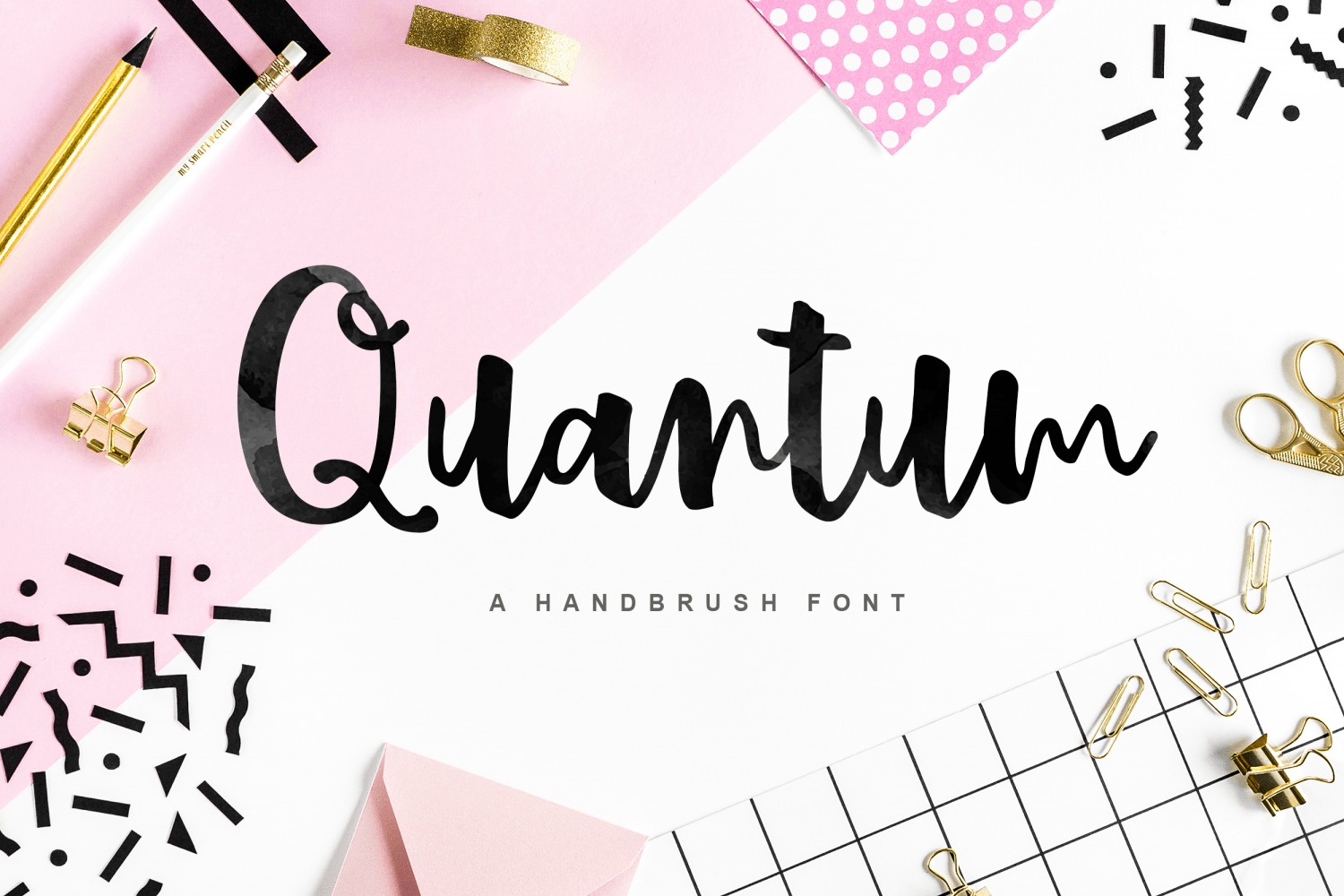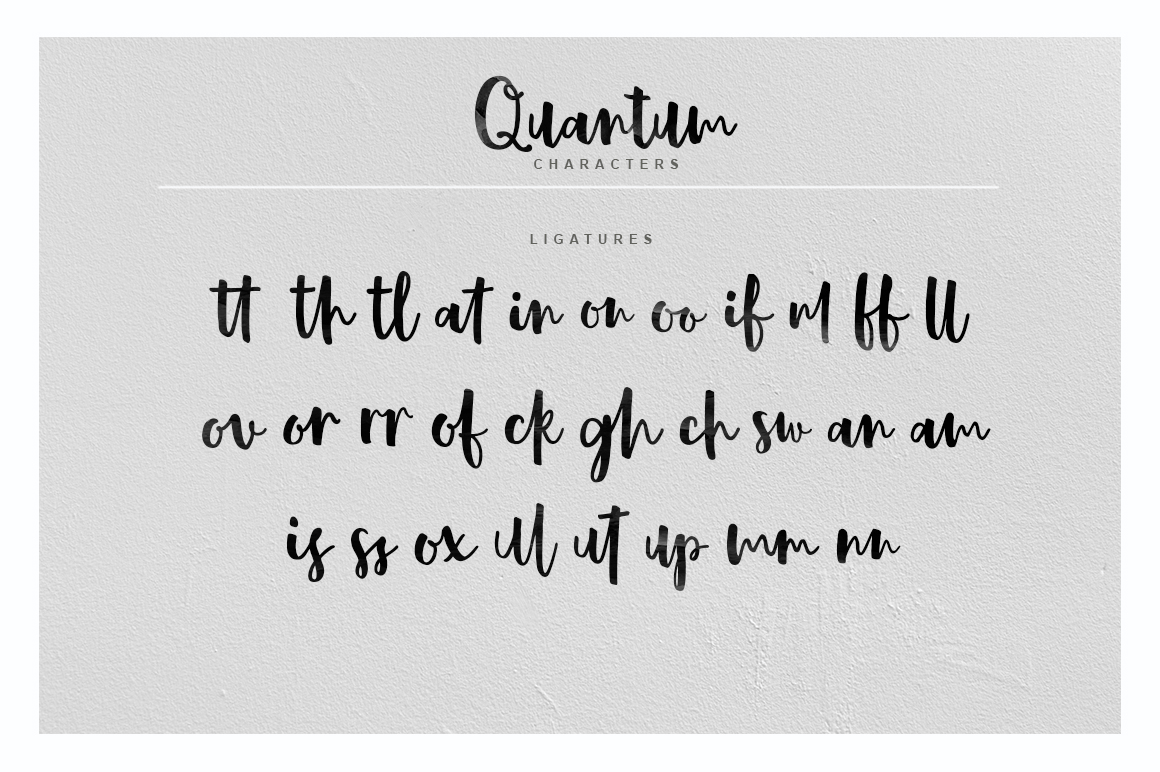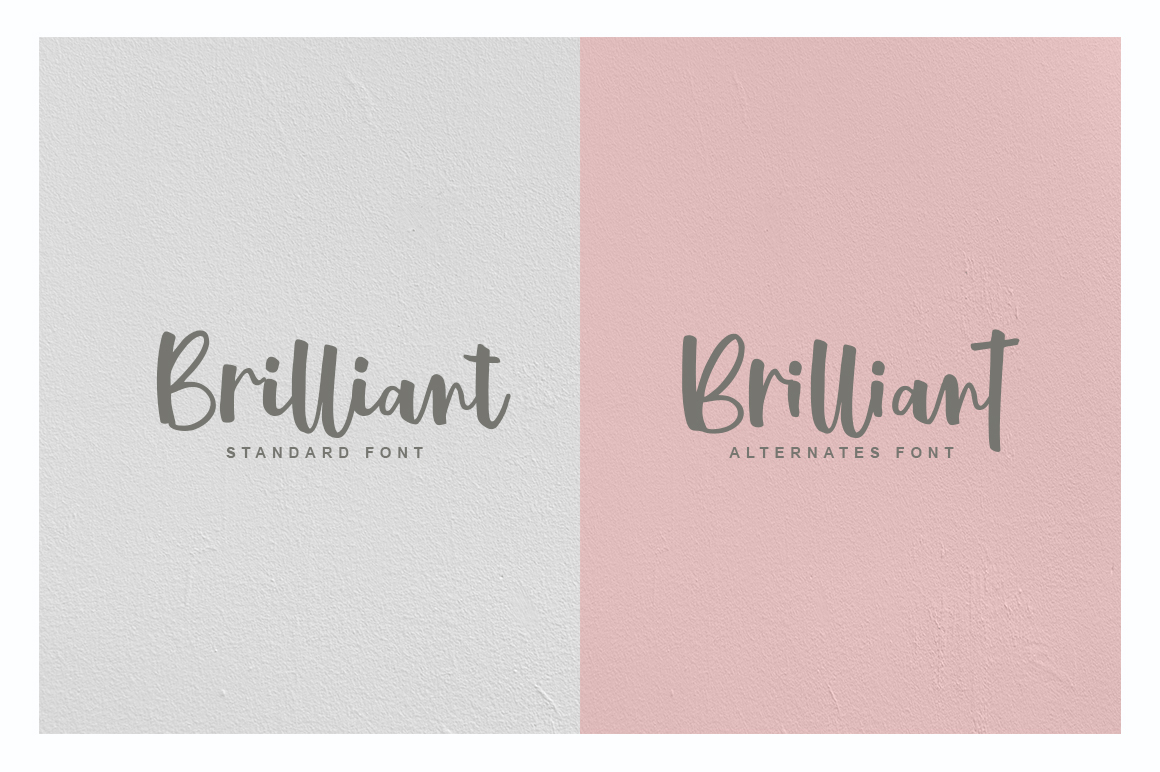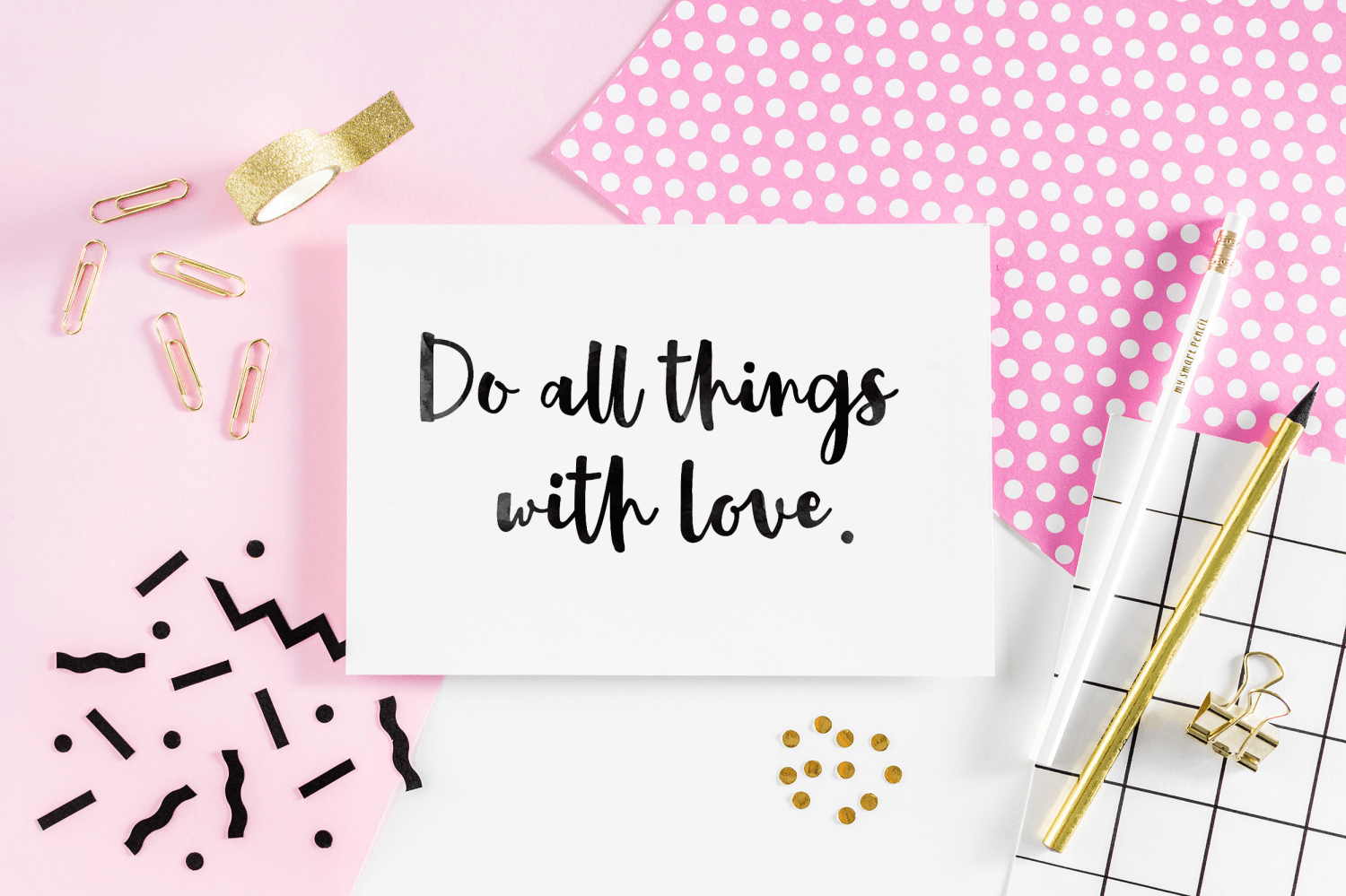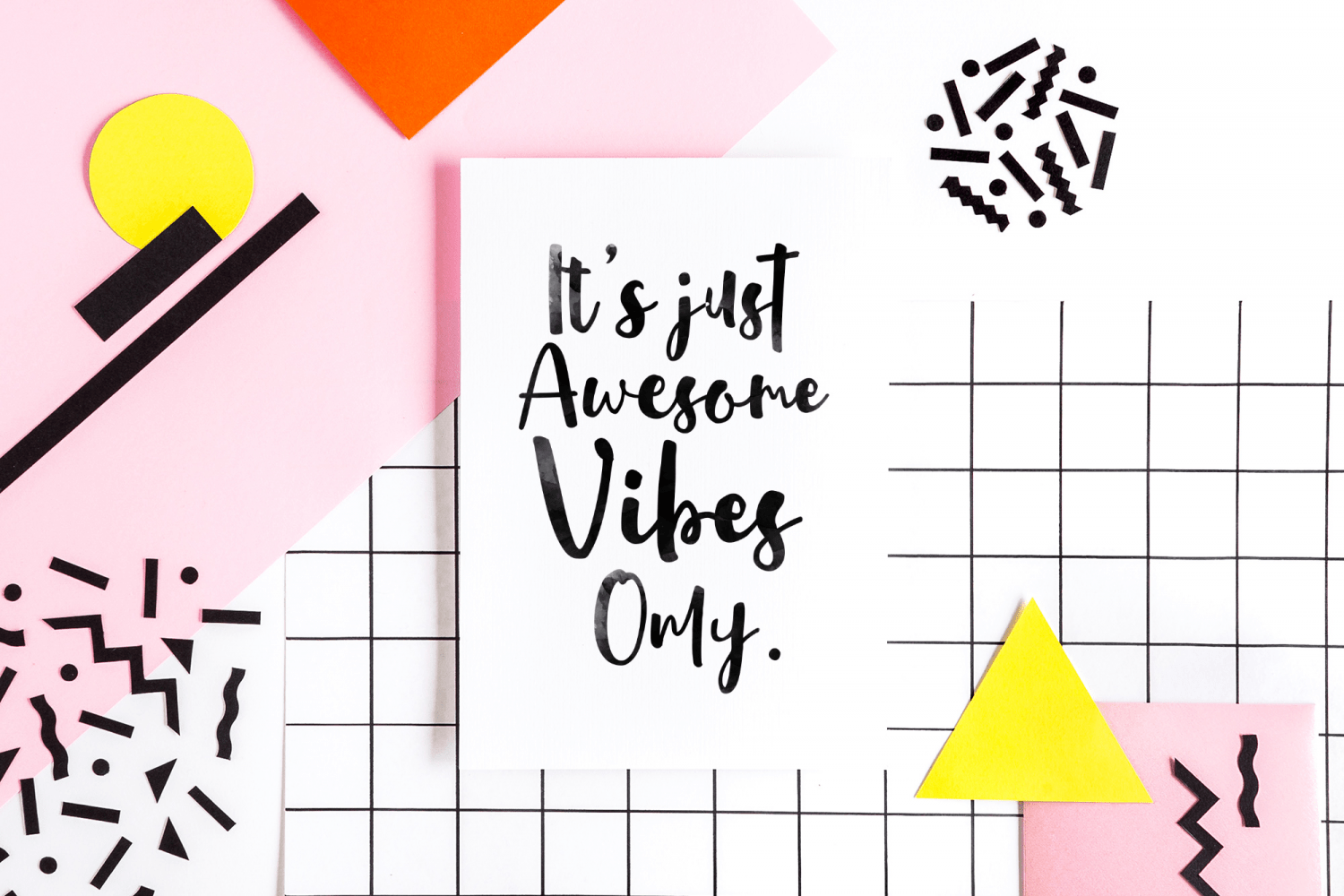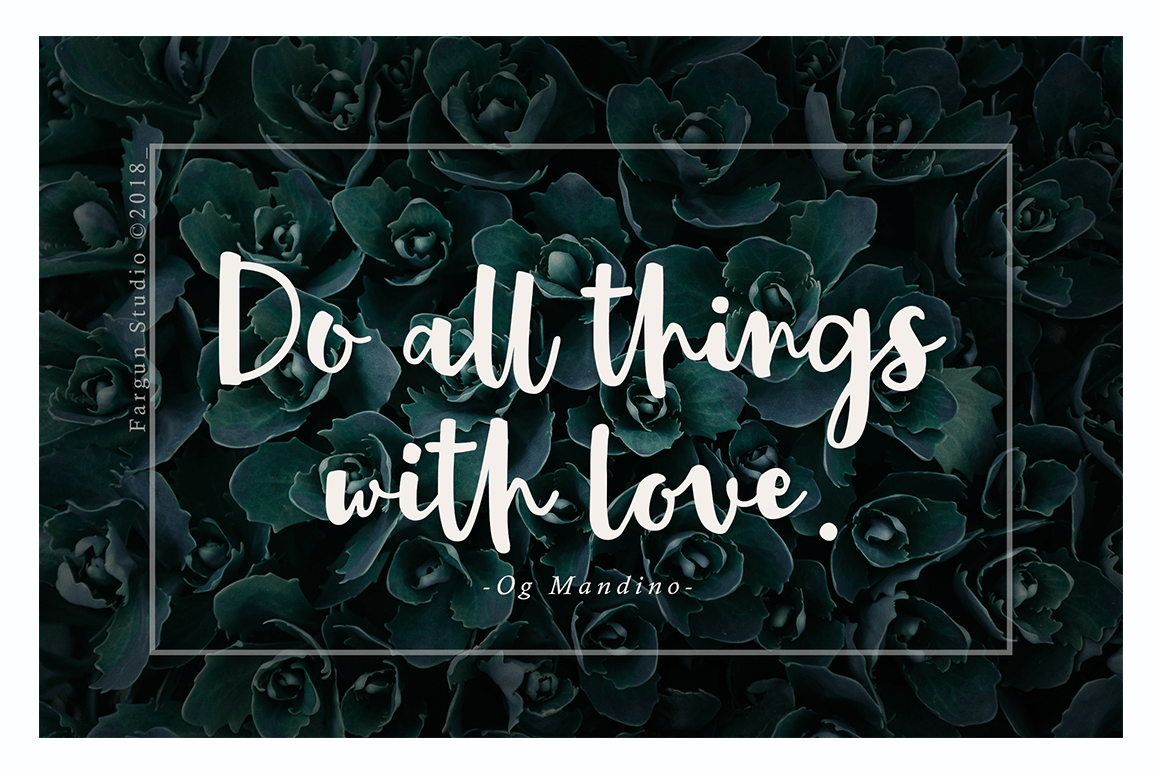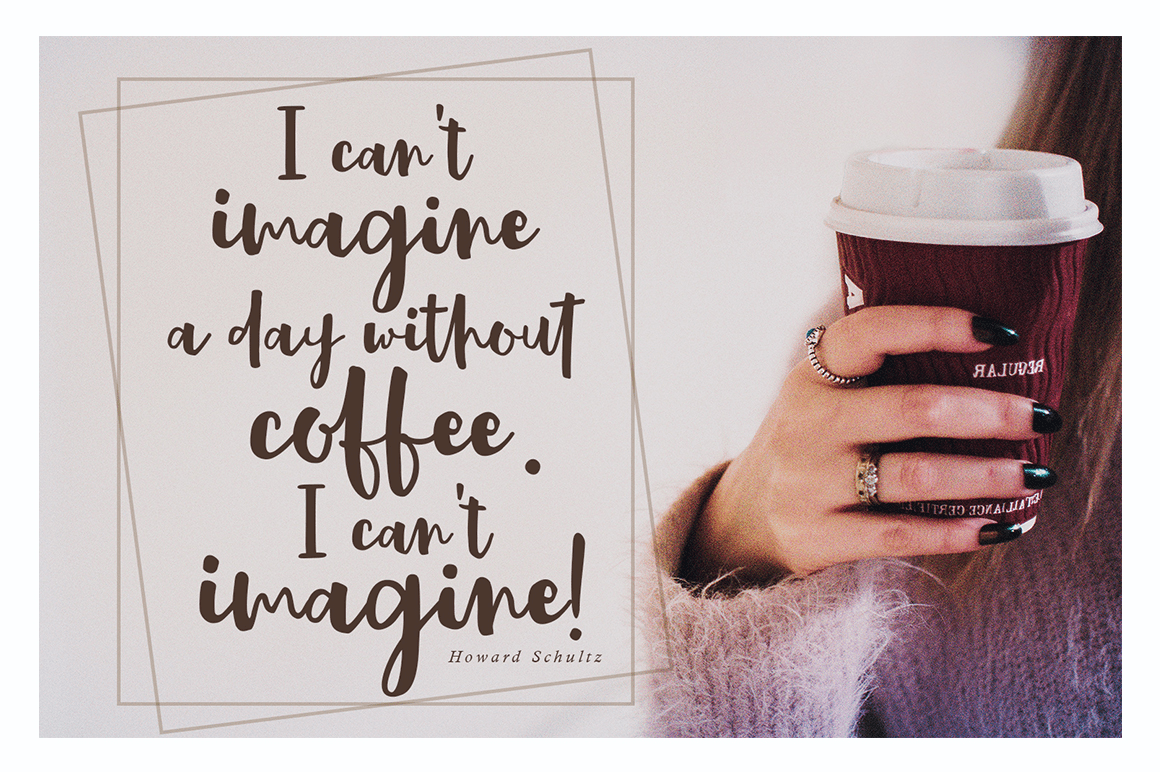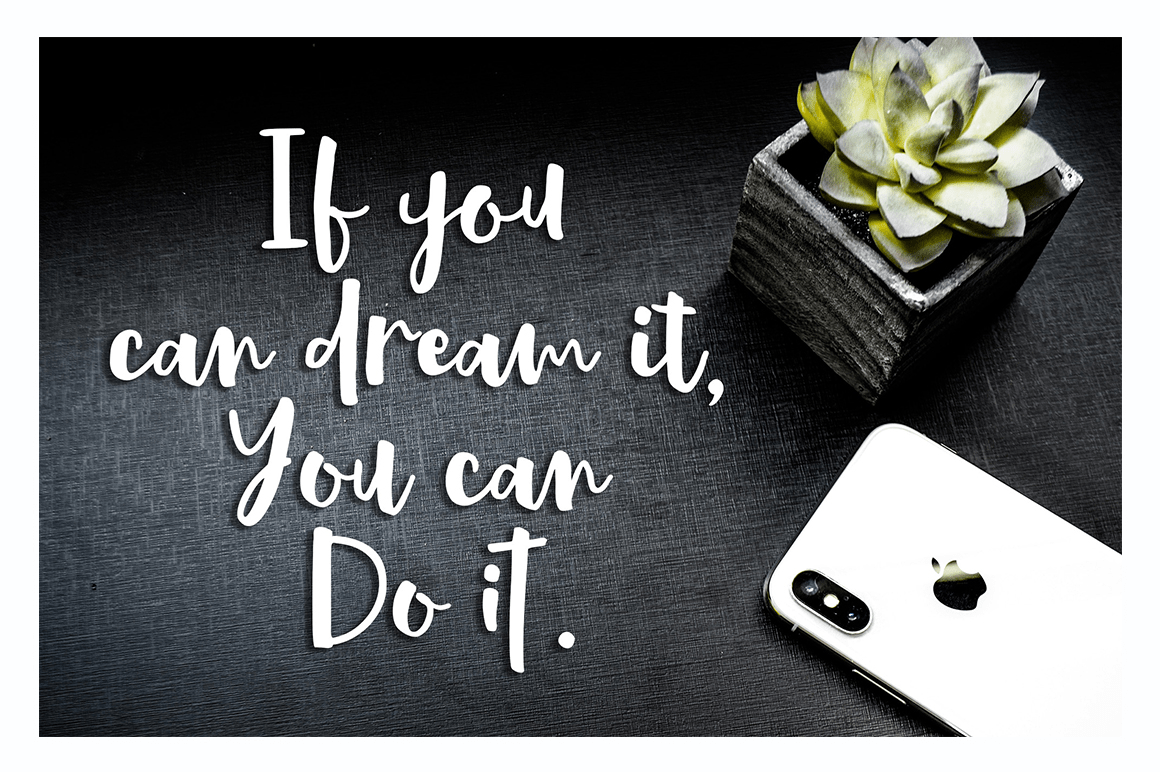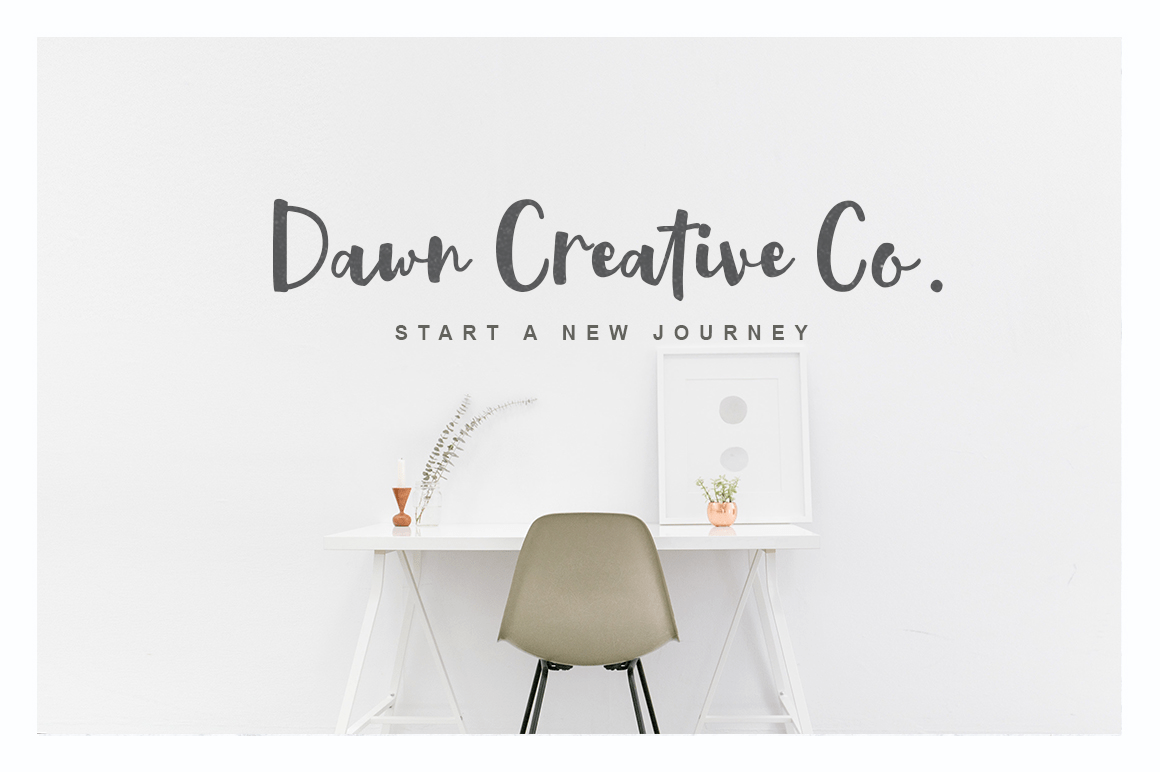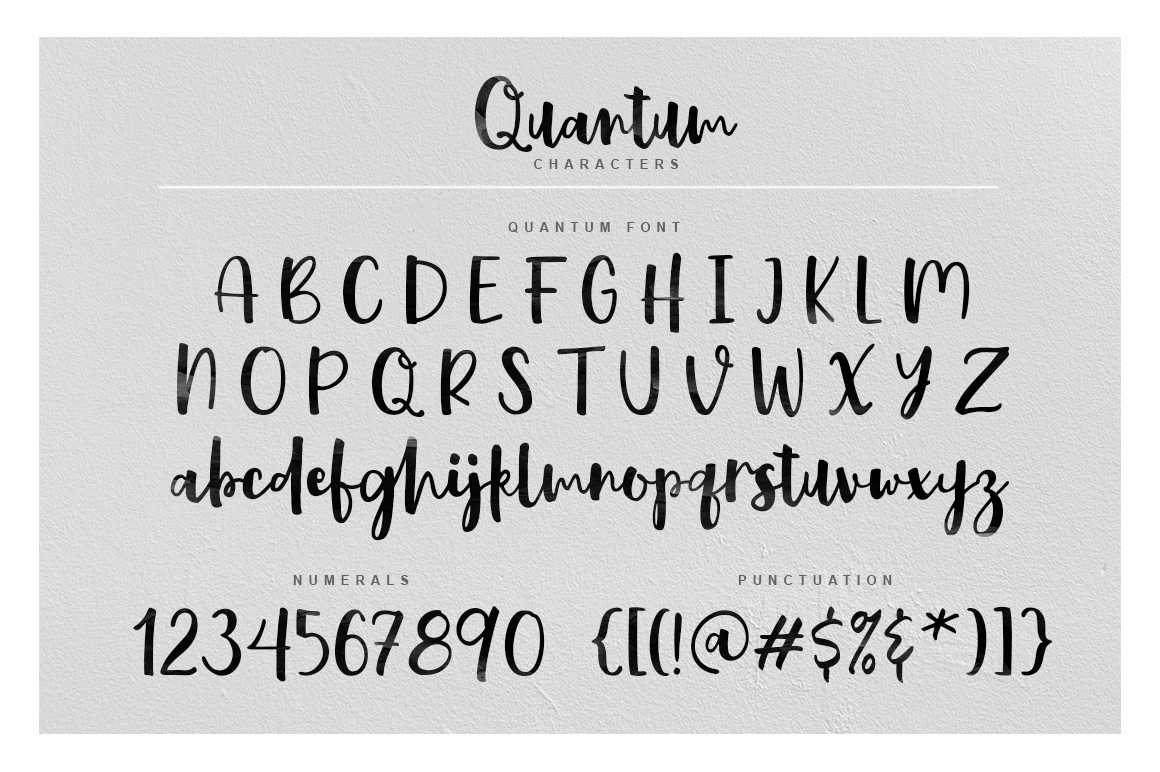
Quantum
Quantum! A beautiful collection of hand-lettered modern calligraphy fonts.
It's made by decorative characters and a dancing baseline! So beautiful on invitation like greeting cards, branding materials, business cards, quotes, posters, and more design concept!
Features :
Unique ligatures
Stylistic Alternates
Stylistic sets
Basic Latin A-Z and a-z
Numbers
International Symbols include
Punctuations